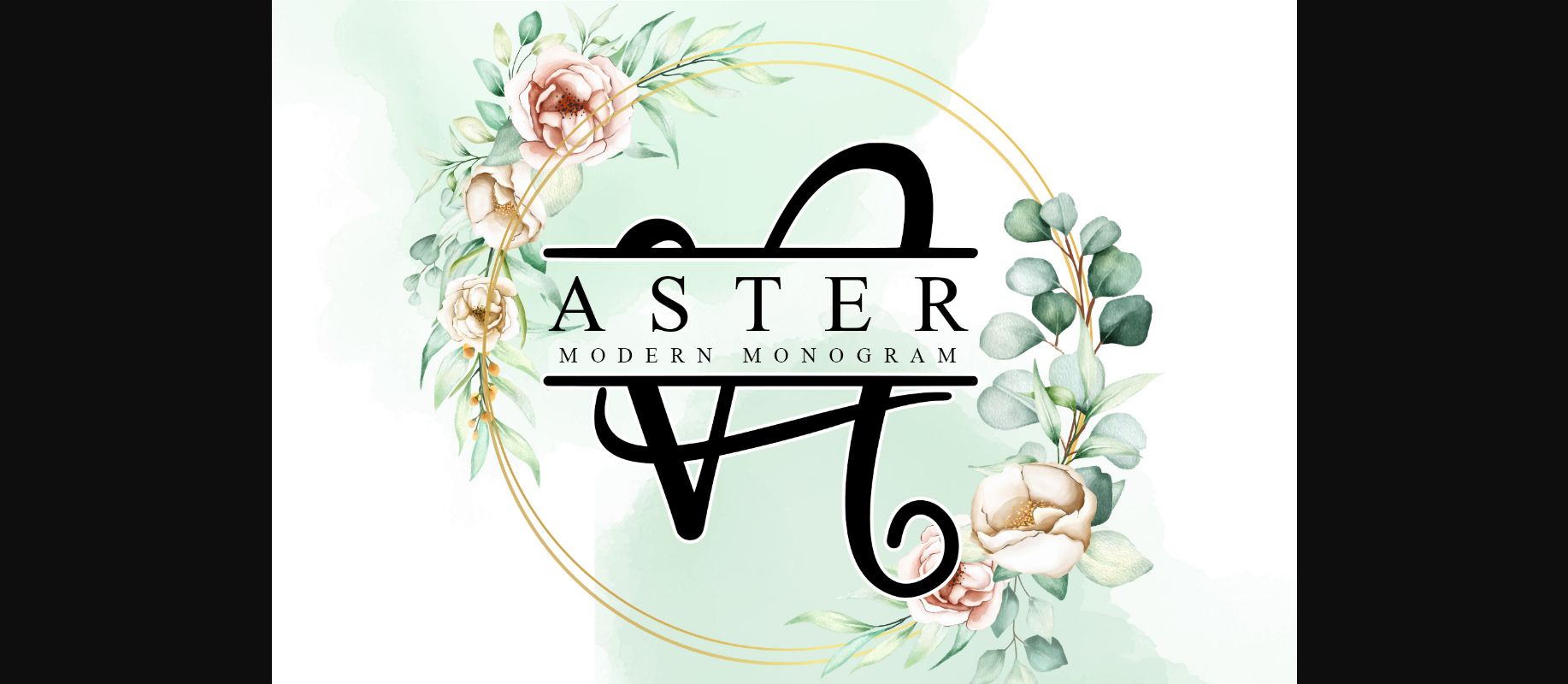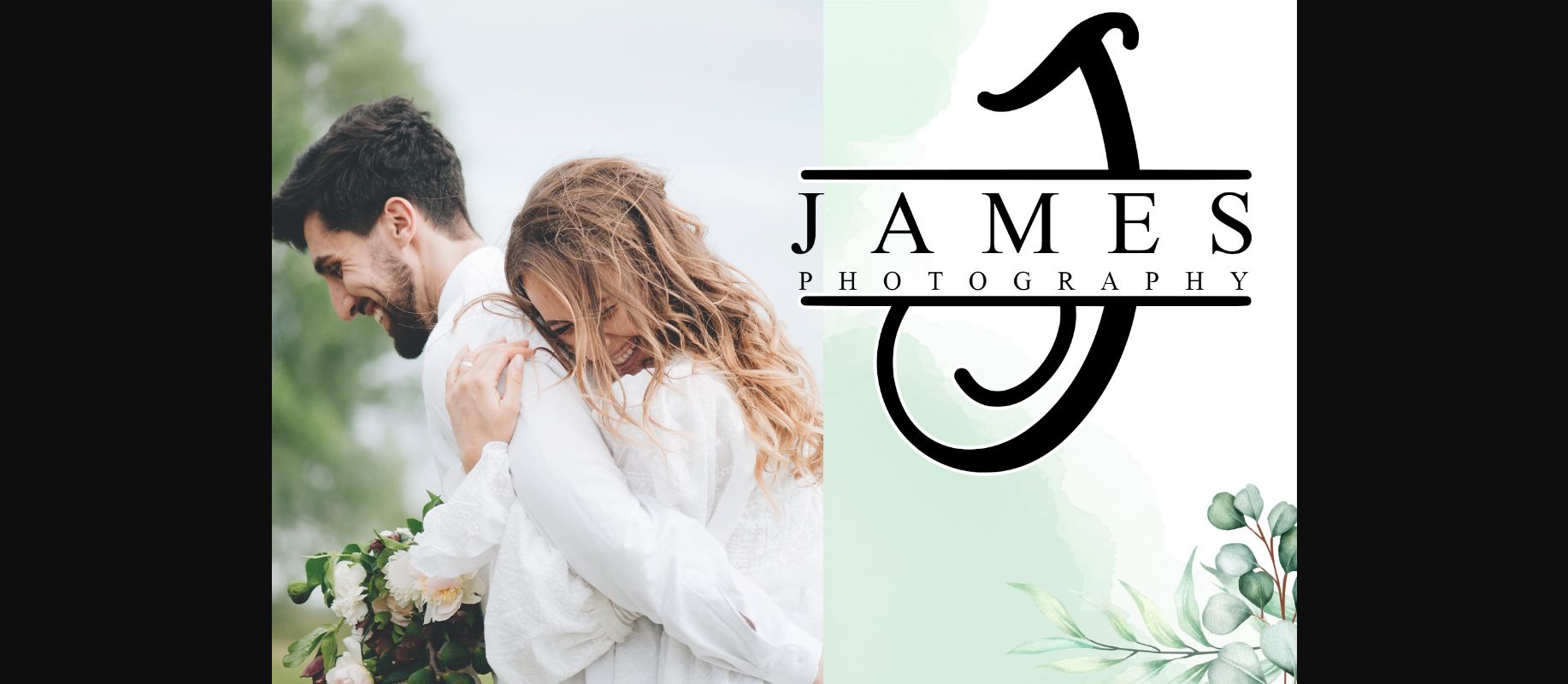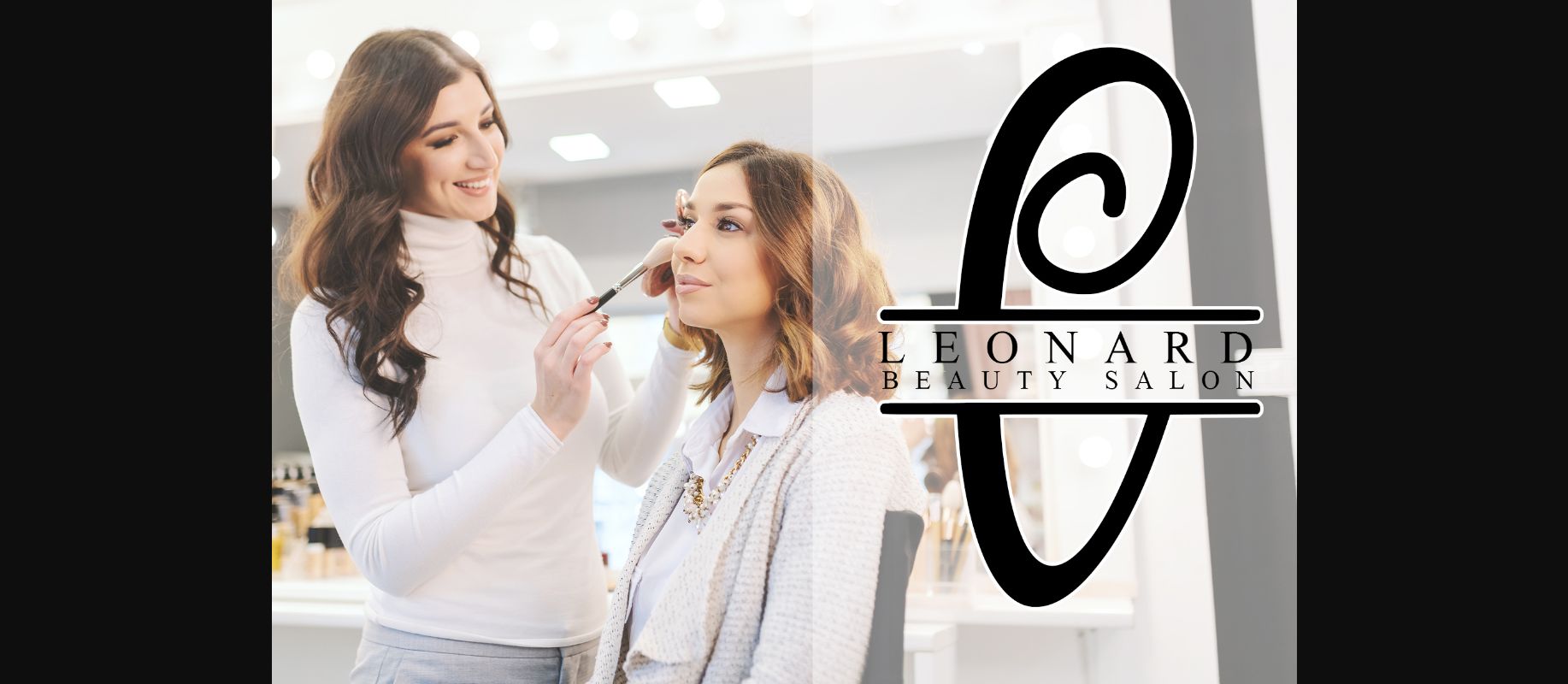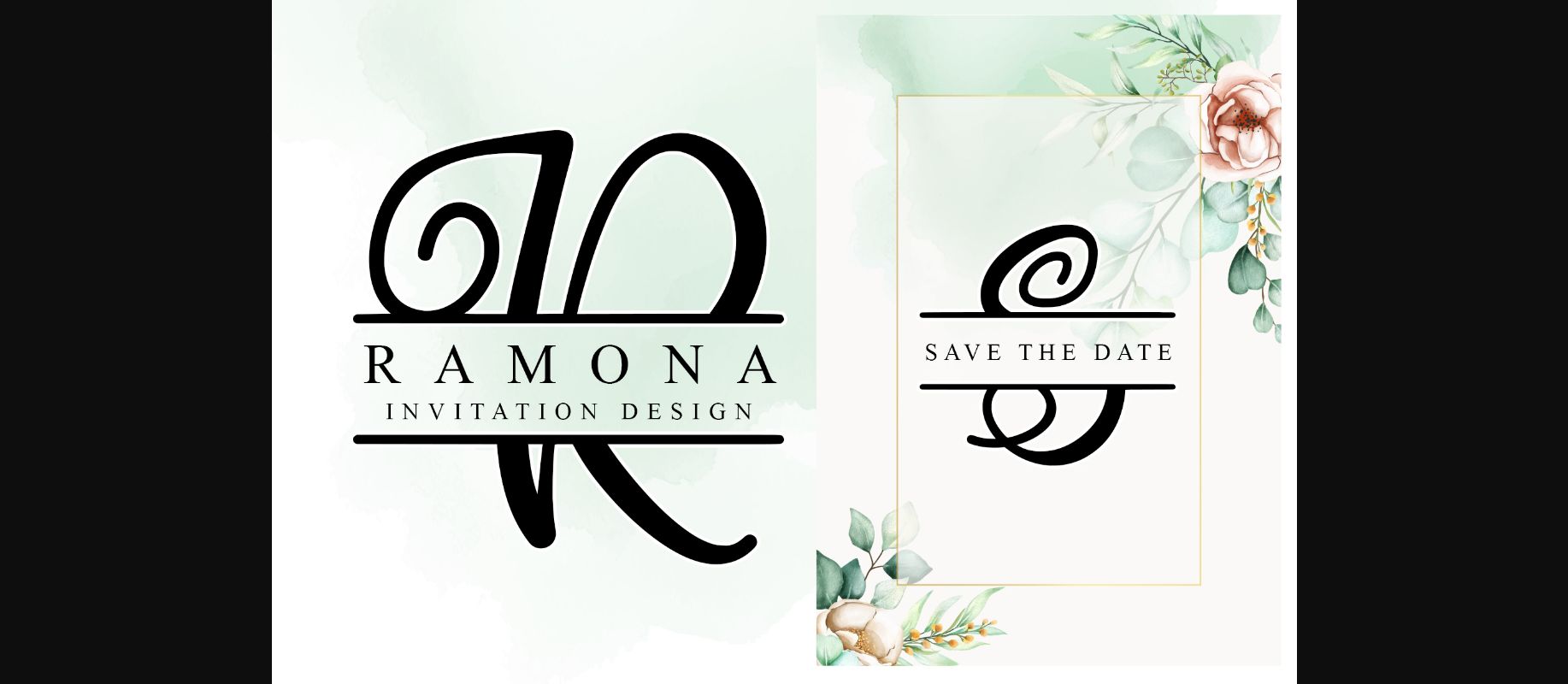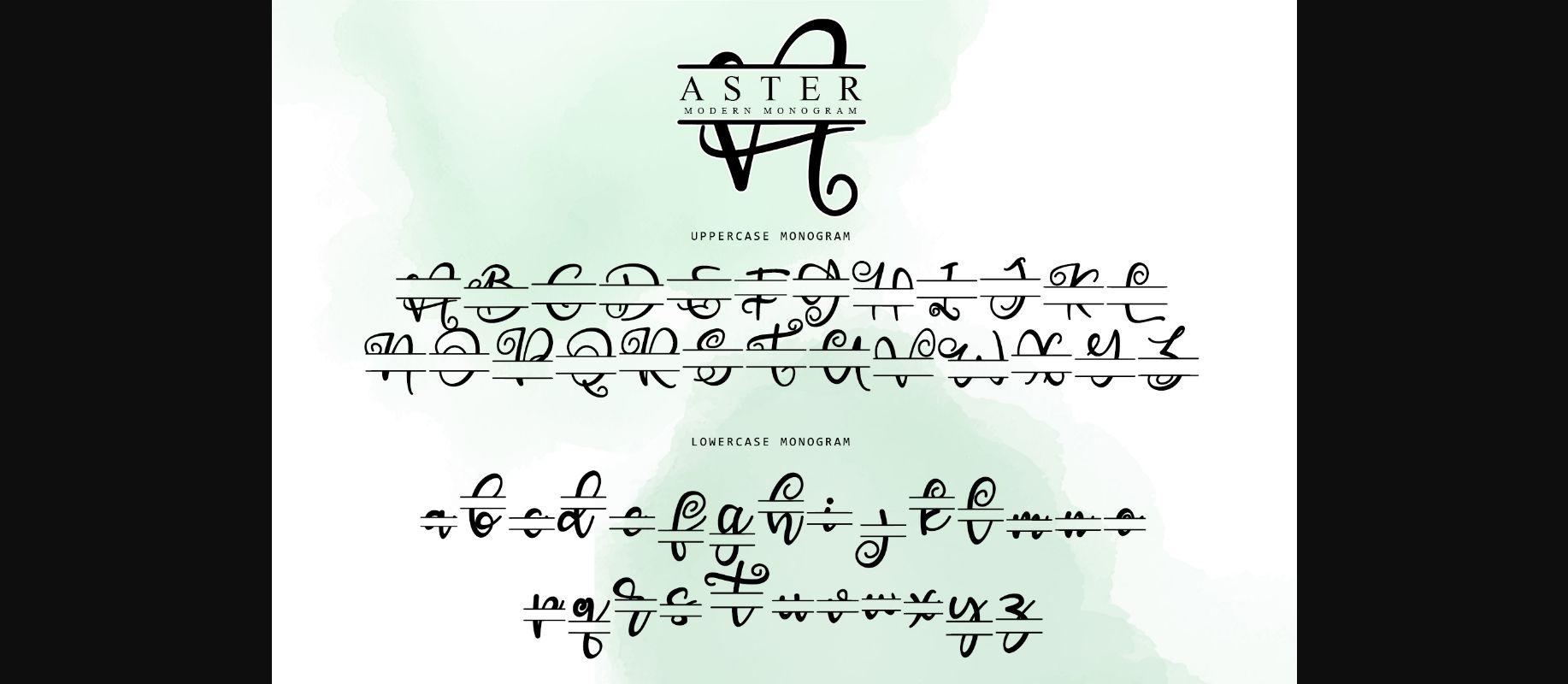
About Aster Font
Aster is an incredibly unique and elegant decorative font. Masterfully designed to become a true favorite, this font has the potential to bring each of your creative ideas to the highest level!